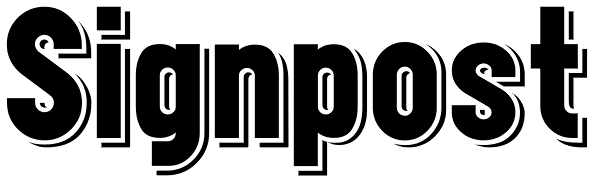
Signpost
The name says it all. Signpost is a display font purpose-designed for directional, informational and publicity signage, as well as posters, public notices and advertisments. It comes complete with a choice of 'pointing hands' symbols and quartrefoil...
Signpost
Signpost Italic